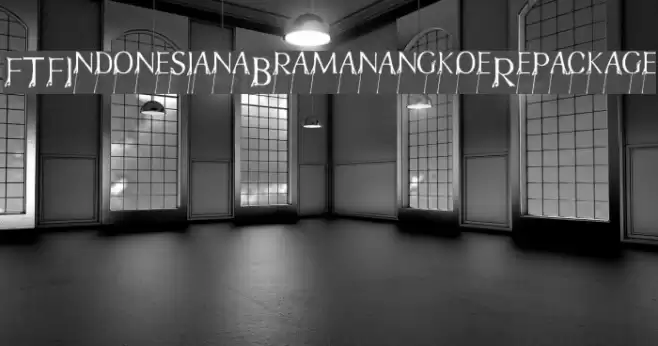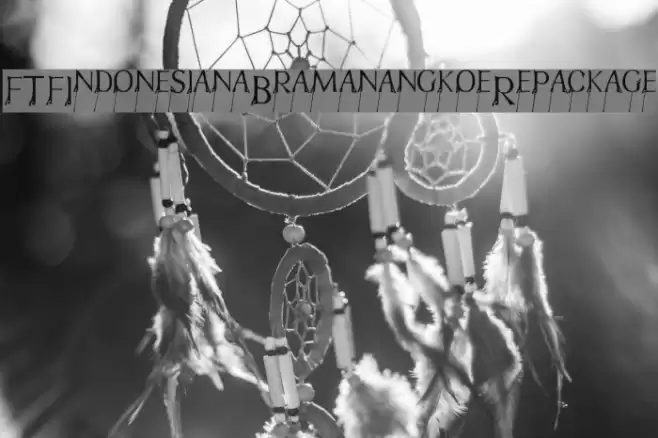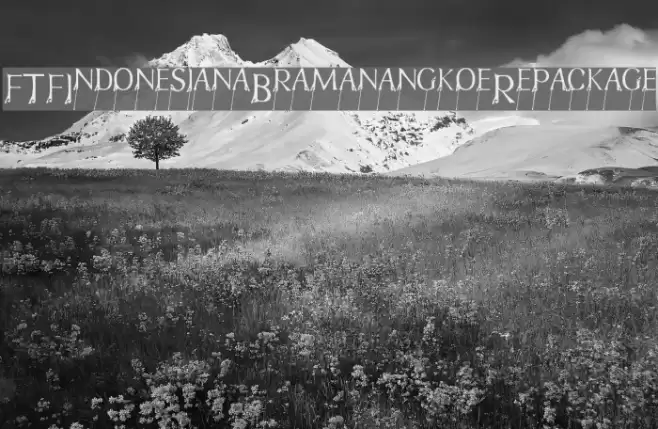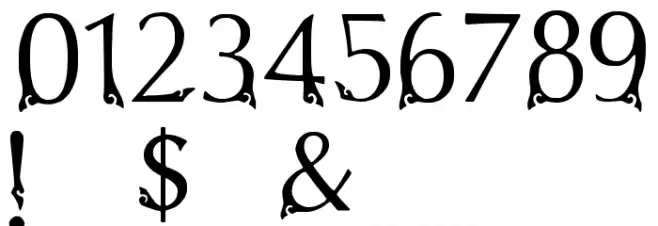
FTFIndonesianaBramanangkoeRepackage Font
FTFIndonesianaBramanangkoeRepackage Description
This font features a unique and decorative style, characterized by elegant, elongated serifs that resemble ornamental hooks or tails. The uppercase letters are bold and prominent, with a distinct flair that adds a touch of sophistication. The lowercase letters maintain a consistent style, complementing the uppercase with their own intricate details. Numbers and special characters follow the same design principles, ensuring a cohesive look across all elements. The overall appearance is both artistic and functional, making it suitable for projects that require a distinctive and eye-catching typeface.
A decorative font with elegant, elongated serifs and intricate details from Uncategorized fonts.
- Proposed Projects: Ideal for branding, invitations, posters, and any design project that requires a unique and artistic touch.